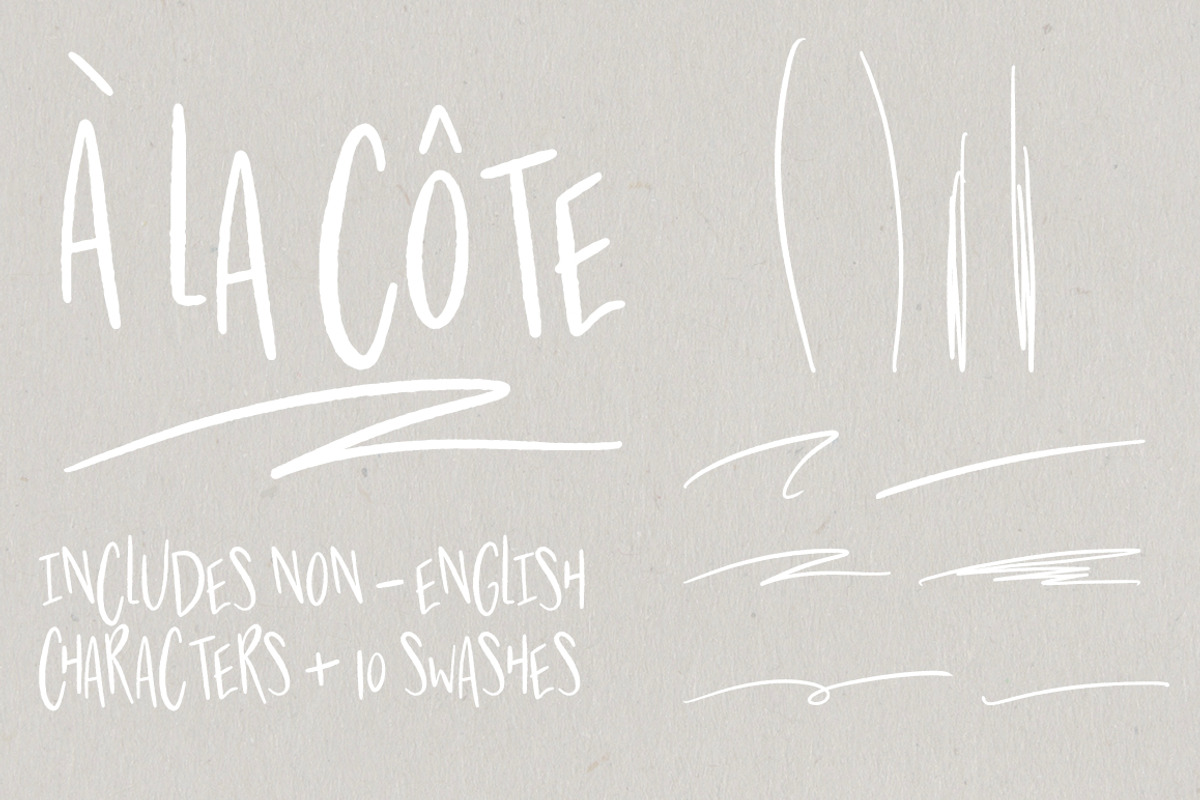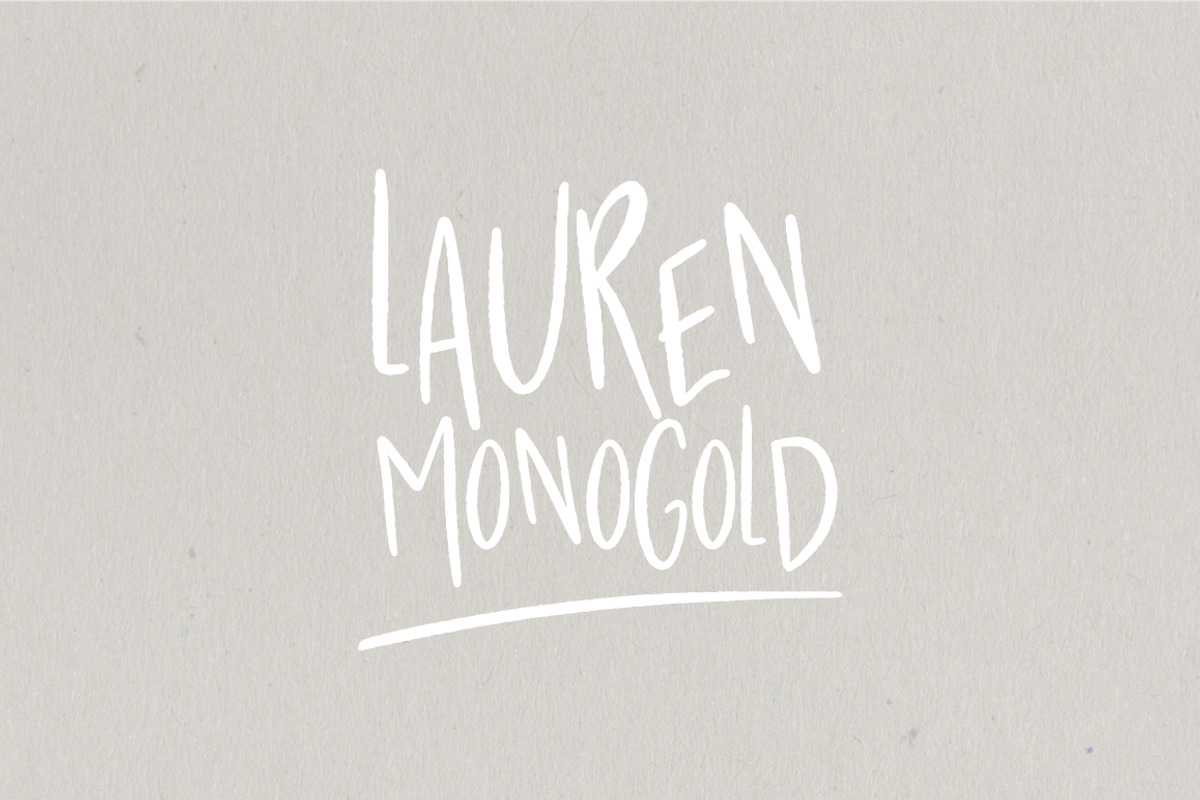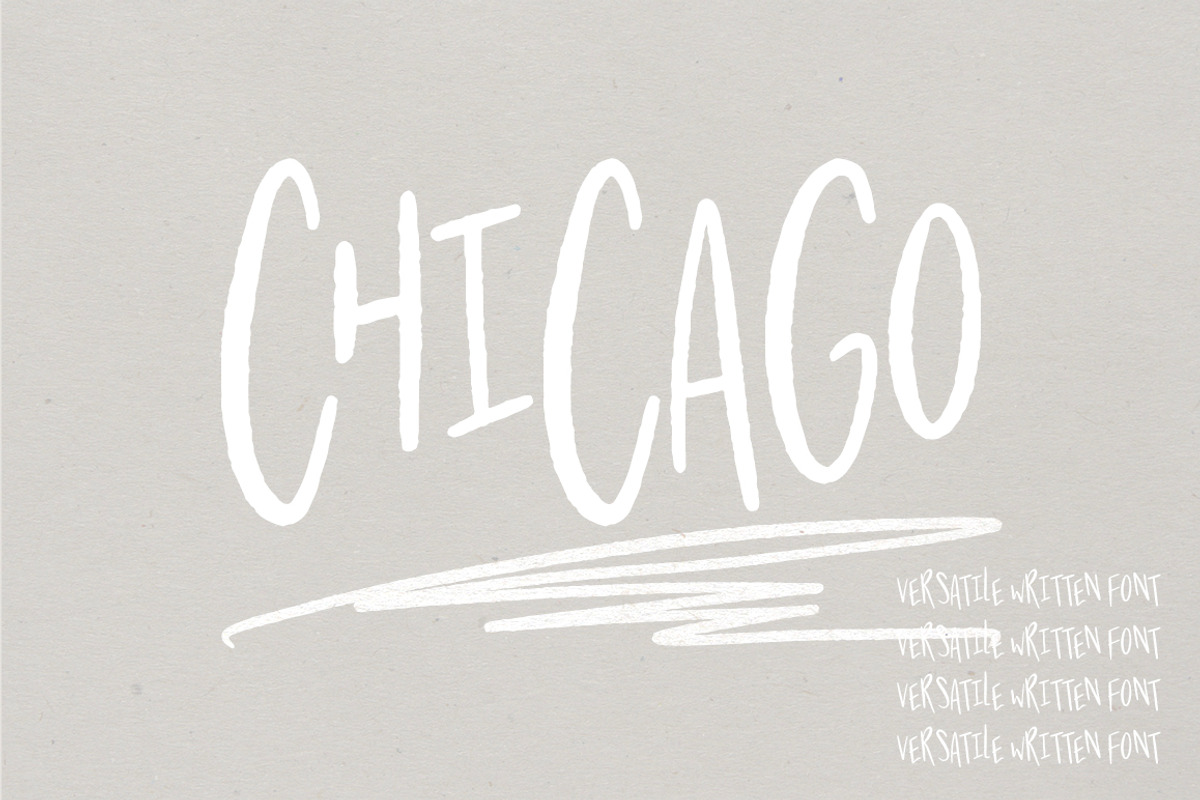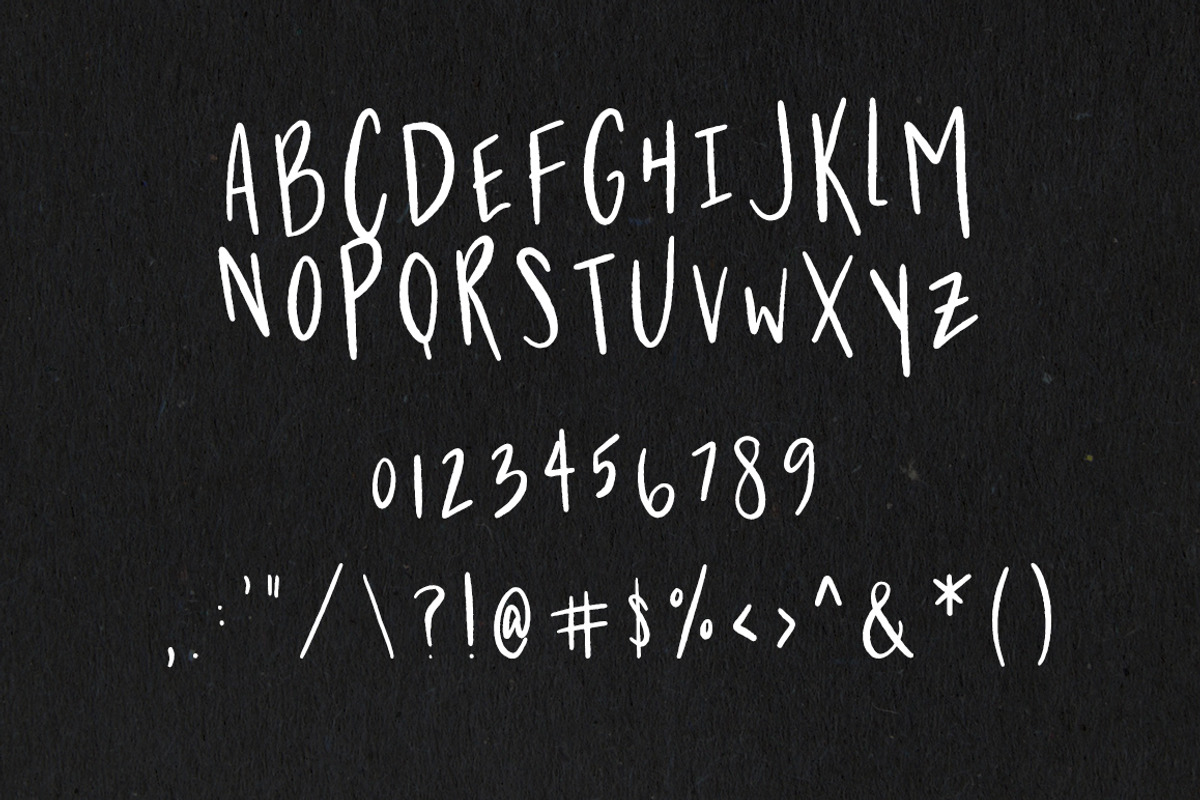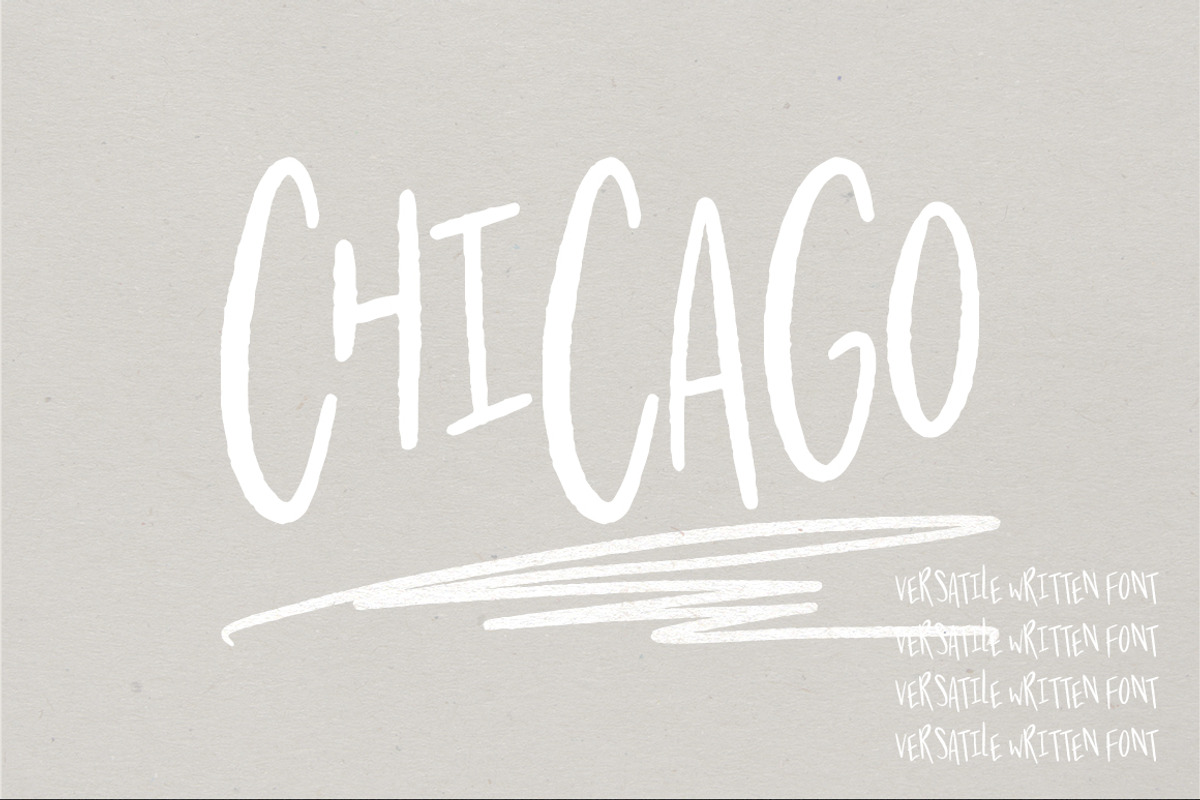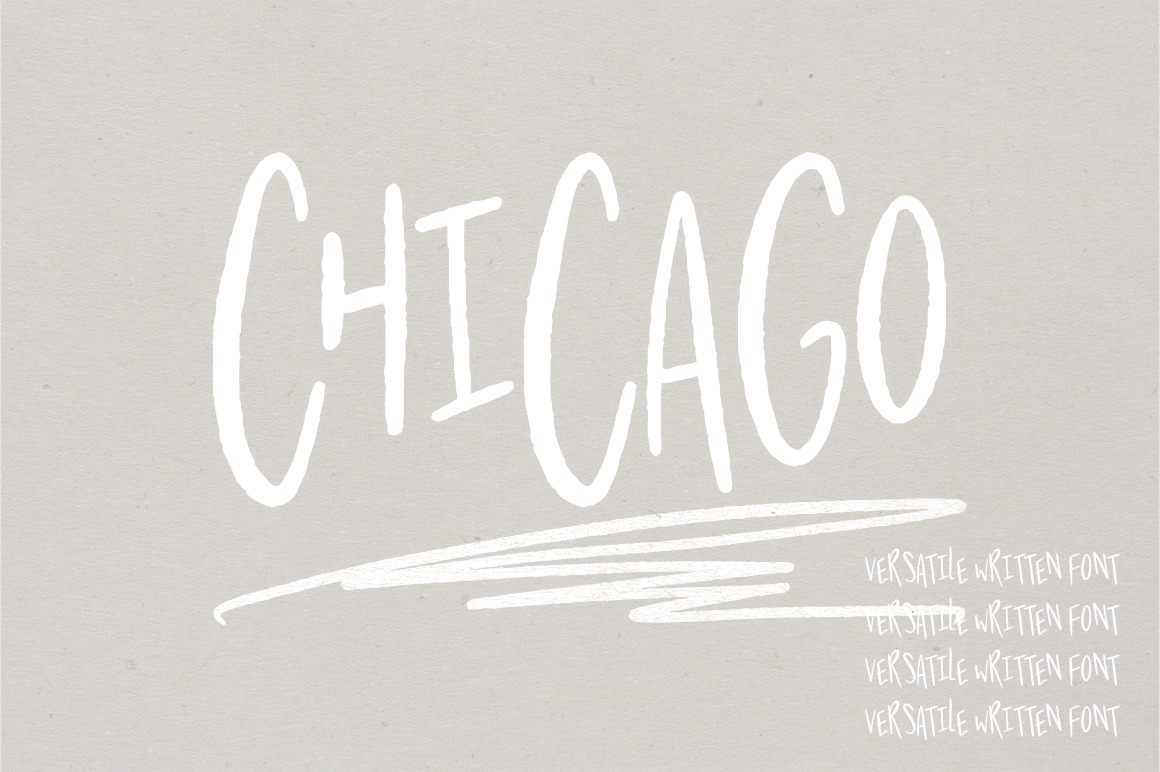
Chicago | A Hand Written Typeface
Chicago is a lightly textured hand lettered sans serif font that makes for stunning logos, headers, and holiday / special event cards and invitations! It also includes a swash font with 10 swashes available by using numbers 0-9
Includes
- Capital letters & numbers
- Non English characters available via the Glyphs panel
- Swashes (available via numbers 0-9)